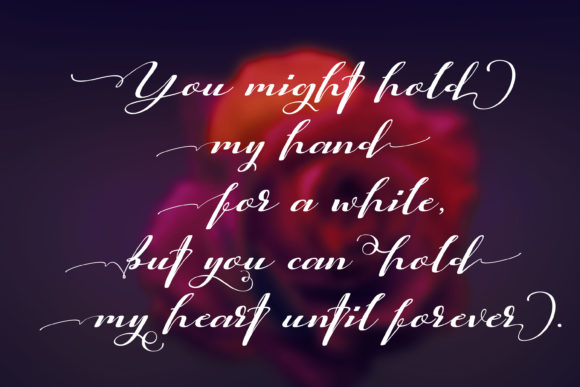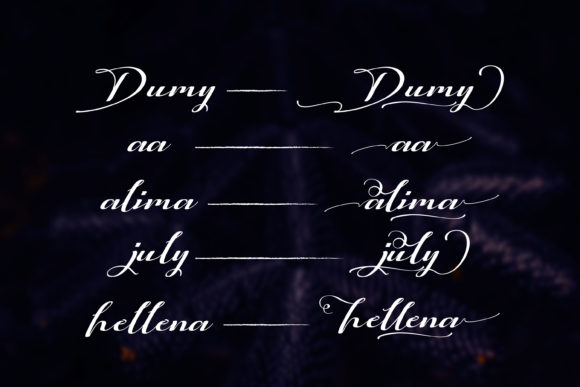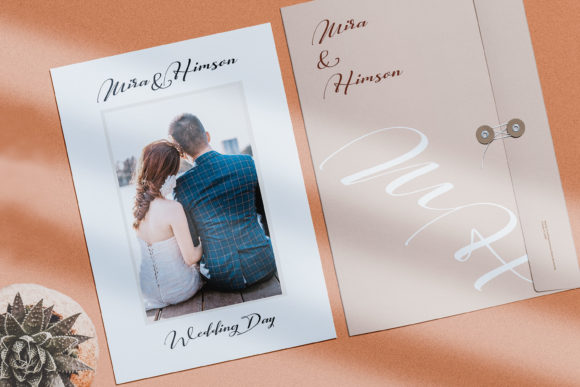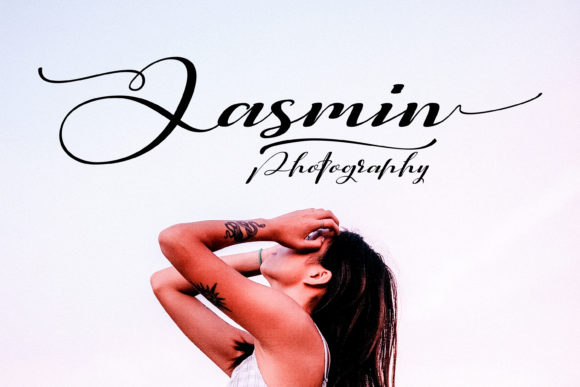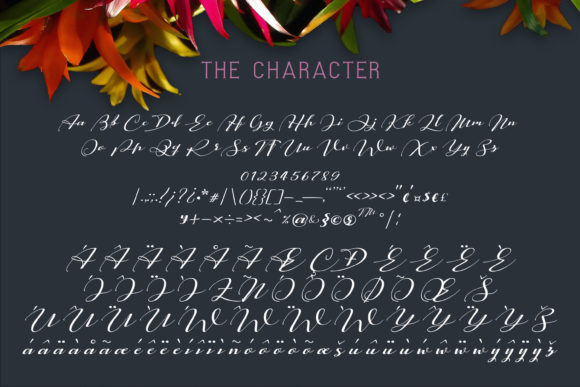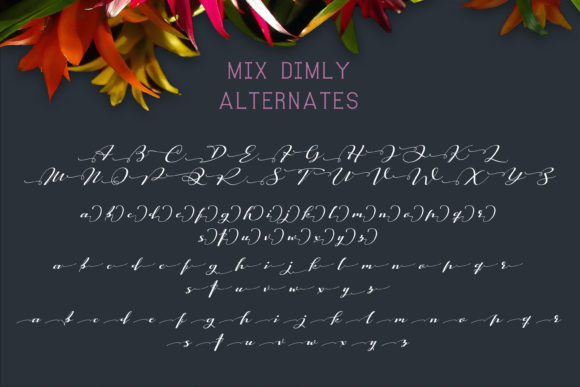
Introduction to Mix Dimly Font
Remember that moment when you stumbled upon the perfect font for your creative project? The one that captured the essence of your vision and brought your design to life? For designers and artists, finding the right font can be a game-changer. It’s the difference between a good design and a great one. And, for those who appreciate the beauty of handwritten fonts, there’s one that stands out from the crowd: the Mix Dimly Font.
This stunning font is more than just a design resource – it’s an extension of your creative expression. With its delicate, timeless feel, it’s perfect for adding a handwritten touch to your designs, from wedding invitations and thank you cards to logos and business cards. And the best part? It’s available for free download, making it accessible to designers of all levels.
Key Features of Mix Dimly Font
- High-quality font design with a unique, hand-drawn aesthetic, perfect for creative projects requiring a touch of elegance.
- Designed to be highly legible, even at small sizes, making it ideal for use in a variety of contexts, from signage to editorial content.
- Includes a range of weights and styles, from light to bold, providing flexibility and versatility for designers and artists.
Honest Review: Mix Dimly Font
As a designer, I’m always on the lookout for high-quality design resources to elevate my creative projects. Recently, I stumbled upon the Mix Dimly Font, and I’m excited to share my honest review with you.
- ✨ The Mix Dimly Font has a beautiful, modern aesthetic that’s perfect for contemporary designs.
- ✨ The font is highly customizable, making it easy to adjust to your specific design needs.
- ⚠️ The font may not be suitable for traditional or classic designs, as it has a distinctly modern feel.
- ⚠️ Some users may find the font to be too bold or overpowering, depending on the design context.
Overall, I’m impressed with the Mix Dimly Font’s potential for elevating creative projects. While it may not be suitable for every design, it’s definitely worth considering for modern and contemporary designs. With its high-quality design and transparent background feature, it’s a great addition to any design resource library.
Mix Dimly Font is a versatile design resource that can be used in a variety of creative projects, including logos, brochures, and business cards. It’s also a great choice for social media graphics, presentations, and other visual content. With its high-quality design and transparent background, Mix Dimly Font is a great addition to any design project.